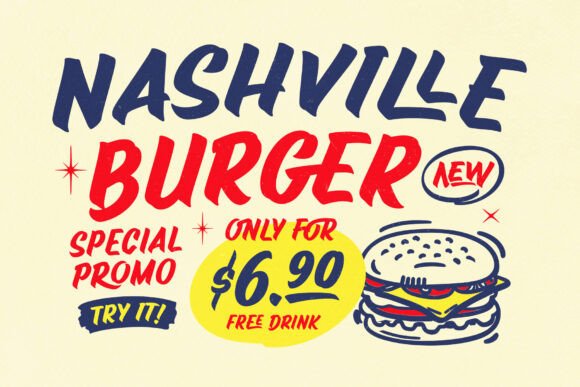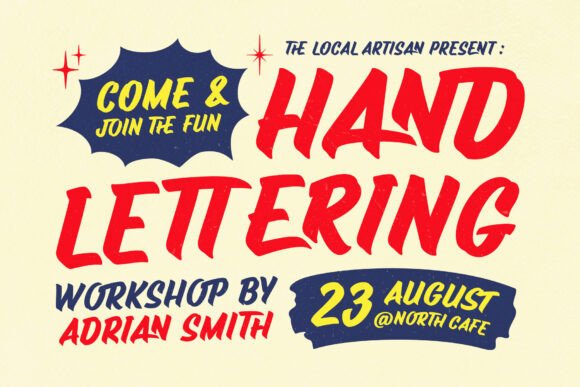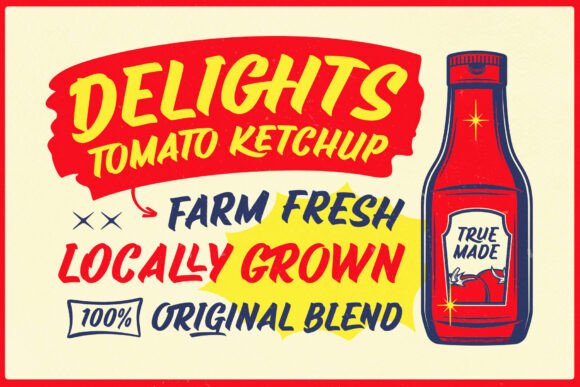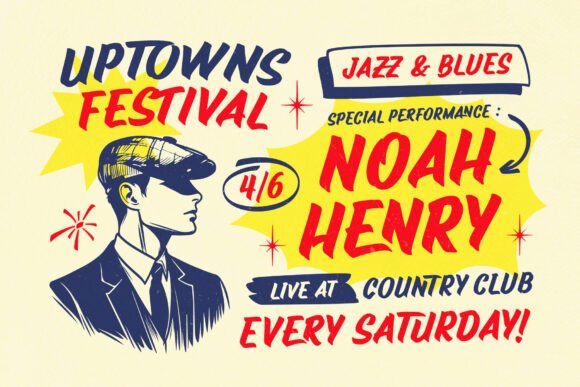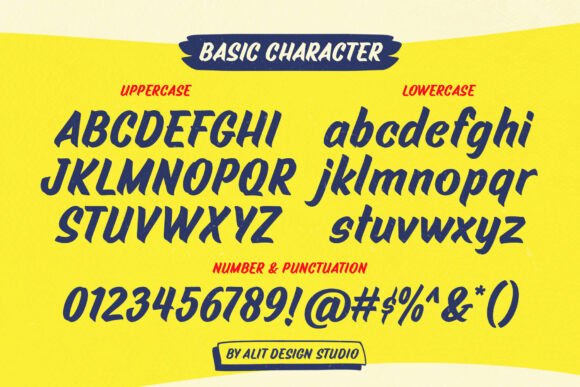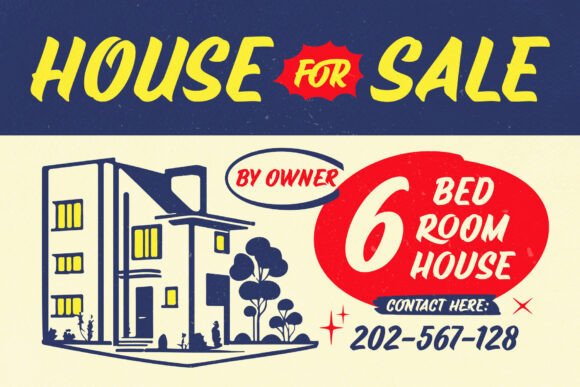
Unlocking the Timeless Charm of Century of Brush Font
As designers, we’ve all been there – staring at a blank canvas, searching for the perfect font to bring our creative vision to life. And then, like a breath of fresh air, it hits us – the perfect font that sets our project apart from the rest. For many, that font is Century of Brush Font, a masterfully crafted, smooth-brush typeface that exudes sophistication and elegance.
With its authentic touch of nostalgia and modern functionality, Century of Brush Font is a design resource that never goes out of style. Whether you’re working on a high-quality design project or simply need a reliable font to add some flair to your creative endeavors, this font is sure to impress. And the best part? It’s available for free download, making it a valuable addition to any designer’s toolkit.
Key Features of Century of Brush Font
- Unique blend of modern and vintage design elements, perfect for creative projects requiring a high-quality, artistic feel.
- Perfect for designers working on creative projects that require a unique, hand-drawn look and feel.
Honest Review: Century of Brush Font
I recently came across the Century of Brush Font and was excited to give it a try. As a designer, I’m always on the lookout for high-quality design resources to elevate my creative projects.
One of the things that works well about this font is its unique, hand-drawn feel. The brush-style strokes add a personal touch to any design, making it perfect for projects that need a little extra flair. ✨
That being said, I do have a few limitations to mention. ⚠️ The font may not be the best choice for projects that require precise typography, as the brush strokes can be a bit unpredictable. Additionally, the font’s size and resolution may not be ideal for printing at larger sizes.
Overall, I’d say the Century of Brush Font is a solid choice for designers who want to add some personality to their work. While it may have its limitations, the unique feel and free download option make it a great resource to have in your toolkit.
- Unique, hand-drawn feel
How to Use Century of Brush Font
Experiment with different font sizes and styles to find the perfect balance for your design. Use the font in combination with other design elements to create a visually appealing layout. Don’t be afraid to try out new and creative ways to use the Century of Brush Font.
The Century of Brush Font is a versatile design resource that can be used in a variety of projects, including wedding invitations, business cards, and marketing materials. Its elegant and sophisticated design makes it perfect for formal events and corporate communications.